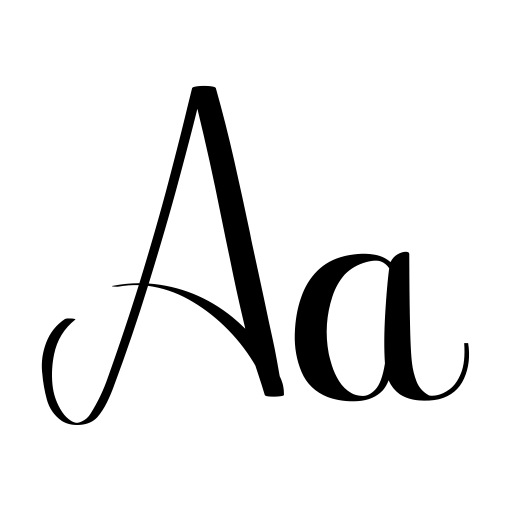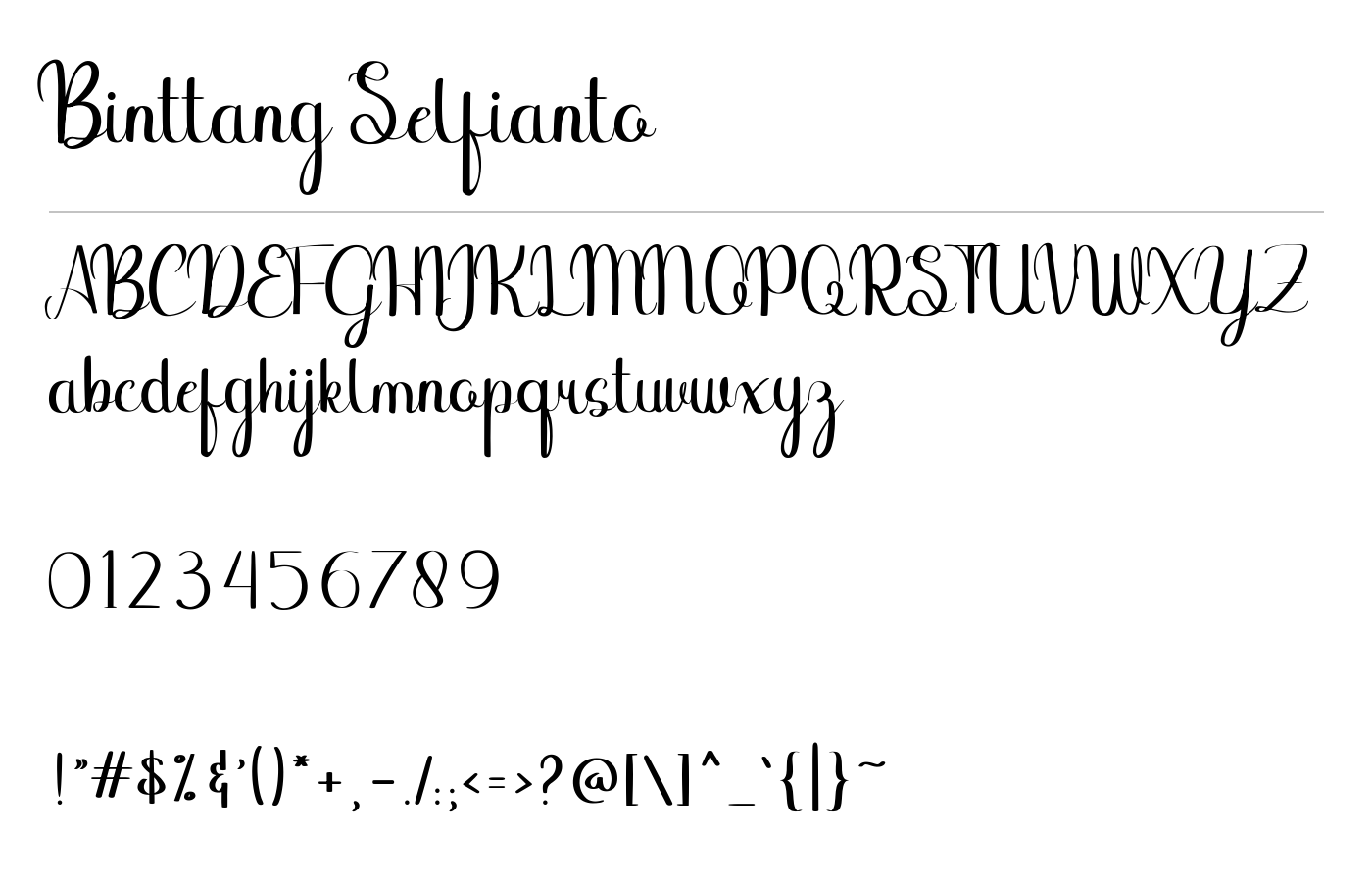
Binttang Selfianto is an elegant script font featuring tall, slender letterforms with smooth, flowing strokes and high contrast between thick and thin lines. Its refined, calligraphic style with delicate swashes and unique character shapes lends a sophisticated and stylish feel, making it perfect for luxury branding, invitations, and editorial headlines. This font works best where a graceful, artistic touch is desired to convey beauty and refinement.
Binttang Selfianto Font
About Binttang Selfianto Font